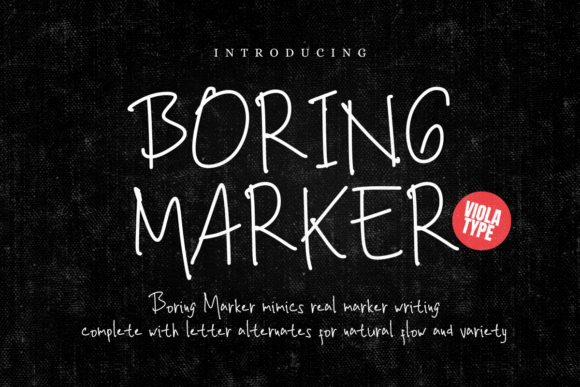
Boring Marker Font: Adding a Punch of Personality to Your Designs
Are you tired of using the same old fonts in your designs? Do you want to add a touch of attitude and authenticity to your posters, social media graphics, or streetwear branding? Look no further than the Boring Marker font, a bold and expressive handmade marker font that’s anything but boring.
The Story Behind Boring Marker
Despite its name, Boring Marker is a font that’s full of life and energy. It’s a handmade marker font that’s designed to capture the raw energy of real hand-drawn lettering. With rough edges and casual strokes, Boring Marker brings a sense of authenticity to your designs that’s hard to replicate with more traditional fonts.
The Characteristics of Boring Marker
So, what sets Boring Marker apart from other fonts? Here are just a few of its key characteristics:
- Rough edges: Boring Marker has a delightfully rough, handmade feel that’s perfect for adding a touch of grit to your designs.
- Casual strokes: The font’s casual strokes give it a relaxed, effortless vibe that’s perfect for social media graphics, posters, and other designs that need to feel approachable and friendly.
- Custom ligatures: To keep your lettering looking dynamic and natural, Boring Marker includes a few custom ligatures that add an extra touch of personality to your designs.
Uses for Boring Marker
Boring Marker is a versatile font that can be used in a wide range of design applications. Here are just a few ideas to get you started:
- Posters: Add a touch of attitude to your posters with Boring Marker. Its bold, eye-catching lettering is perfect for grabbing attention and conveying a message.
- Social media graphics: Boring Marker is a great choice for social media graphics, where its casual, friendly vibe can help you connect with your audience.
- Streetwear branding: If you’re looking for a font that can help you create a bold, edgy brand identity, Boring Marker is a great choice.
- Anything that needs a punch of personality: Whether you’re designing a flyer, a brochure, or a website, Boring Marker can help you add a touch of personality to your design.
Why Choose Boring Marker?
So, why should you choose Boring Marker for your next design project? Here are just a few reasons:
- Unique, handmade look: Boring Marker has a unique, handmade look that’s hard to replicate with more traditional fonts.
- Easy to read: Despite its bold, expressive lettering, Boring Marker is easy to read, even at smaller sizes.
- Versatile: Boring Marker can be used in a wide range of design applications, from posters to social media graphics to streetwear branding.
- Customizable: With its custom ligatures and rough edges, Boring Marker can be customized to fit your unique design needs.
Tips for Using Boring Marker
Here are a few tips for getting the most out of Boring Marker:
- Use it boldly: Boring Marker is a bold font, so don’t be afraid to use it boldly. Experiment with large sizes and bold colors to make a statement.
- Mix it with other fonts: Boring Marker can be paired with a wide range of other fonts to create a unique, eye-catching design.
- Experiment with colors: Boring Marker looks great in a wide range of colors, from bold brights to more muted pastels. Experiment with different colors to find the perfect look for your design.
In conclusion, Boring Marker is a bold and expressive handmade marker font that’s perfect for adding a touch of attitude and authenticity to your designs. With its rough edges, casual strokes, and custom ligatures, Boring Marker is a versatile font that can be used in a wide range of design applications. Whether you’re designing a poster, a social media graphic, or a streetwear brand identity, Boring Marker is a great choice. So why settle for a boring, generic font when you can add a punch of personality to your design with Boring Marker?